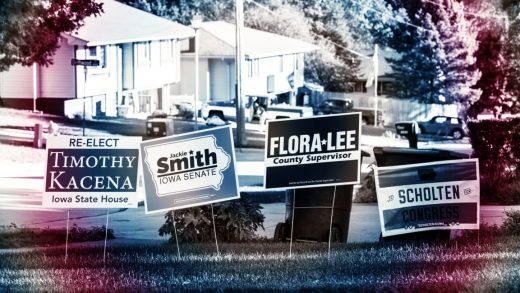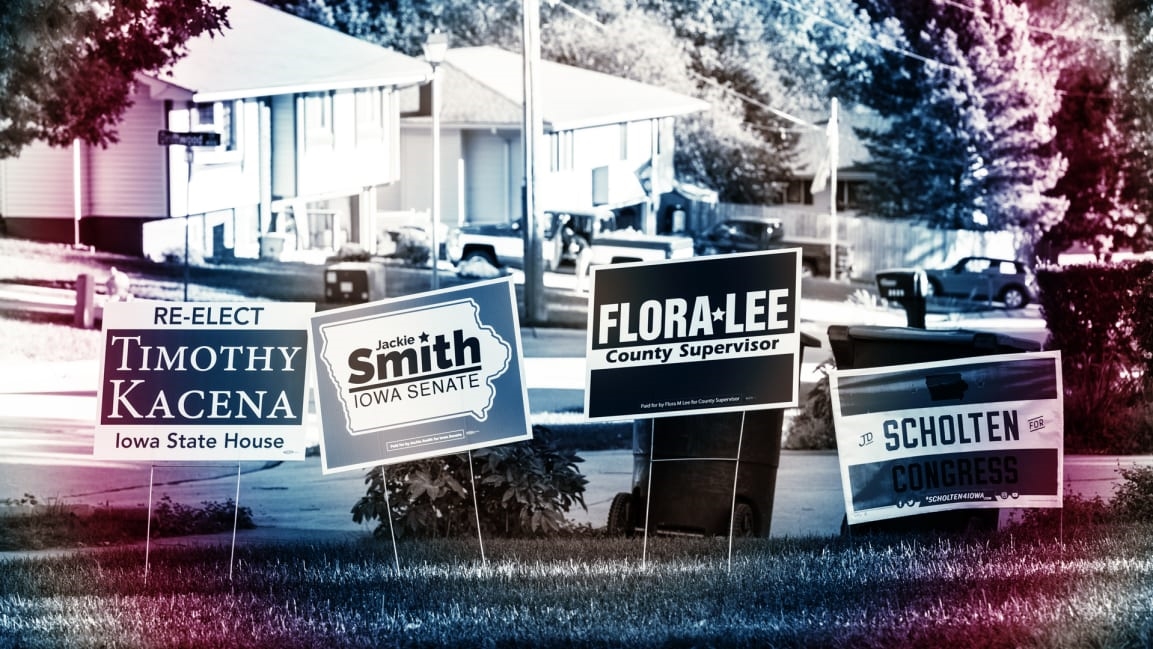
Political candidates spend millions of dollars honing their messages, paying close attention to language and tone, but that work may be for naught if they’re using the wrong typeface. Fonts and text stylings are perceived to have ideological meaning, per a new study in the Journal of Communication Studies.
Specifically: Serif fonts and black letters are perceived as most conservative. Scripts are considered a bit less conservative, and sans serif fonts are considered liberal. Cartoonish typeface is perceived as most liberal.
The study asked 987 people to evaluate fonts in different contexts, including these seven fonts, listed here from most liberal to most conservative:
Bernie Sanders used Jubilat in his 2016 campaign, and President Obama used a font similar to Century Gothic in his 2008 campaign. Bolded, thicker text is also considered more conservative; italicized text is considered more liberal.
The study came about after coauthor Katherine Haenschen, an assistant professor of communications at Virginia Tech, noticed lawn sign fonts. “Our results have clear implications for political campaign professionals,” says the study. “Typeface conveys ideology, so choose a candidate’s typographical identity carefully.” Font choice can also be used to strategically appeal to particular groups of voters, by making a candidate seem more moderate, conservative, or liberal.